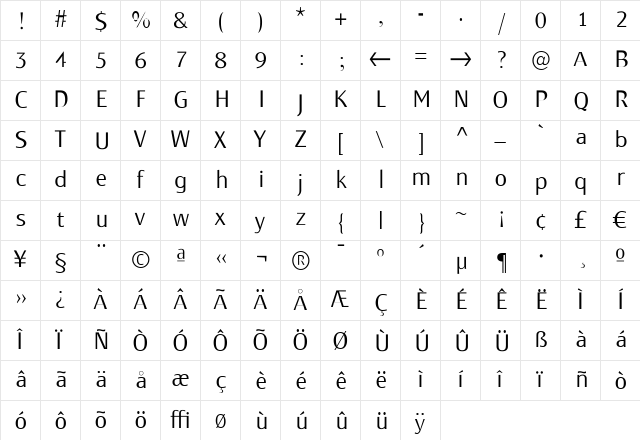
Monem ExtraLight Regular Font Preview
Monem ExtraLight Regular
Monem ExtraLight Regular Font Details
Design Context for Monem ExtraLight Typeface
Monem ExtraLight offers clean, dependable letterforms without strong stylistic allegiance, making it a practical choice for designers who need flexibility. Its slender proportions lend an understated elegance to any composition.